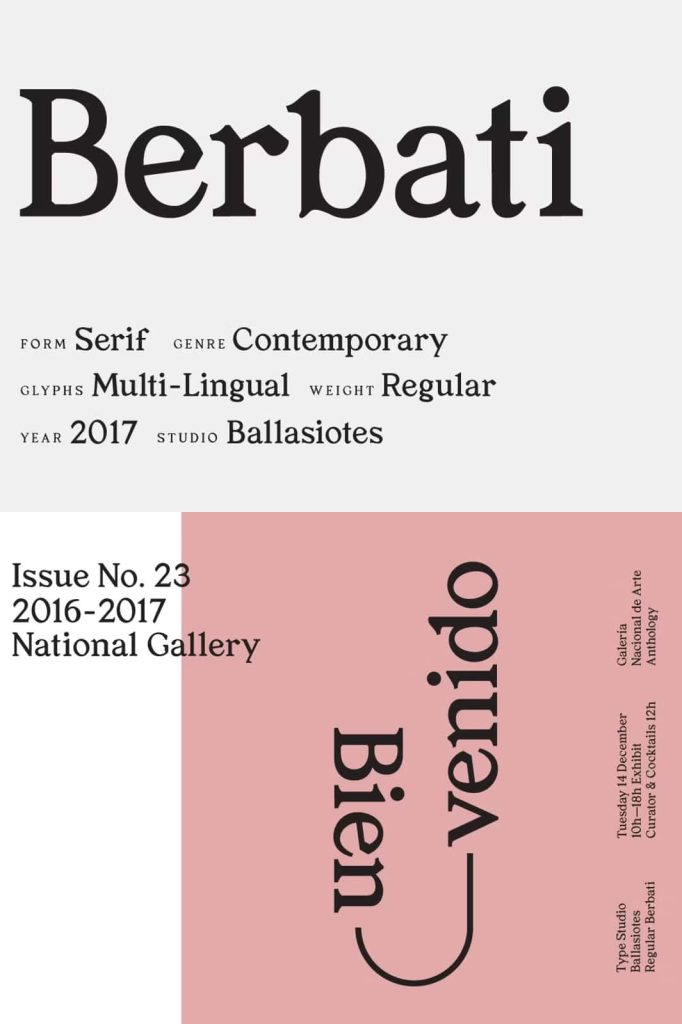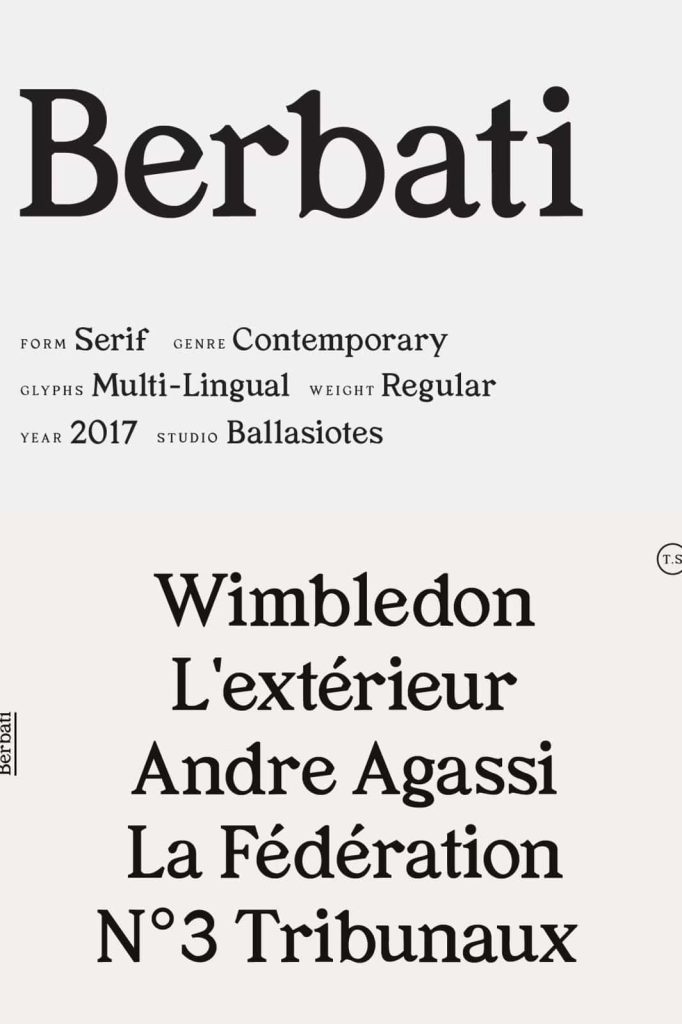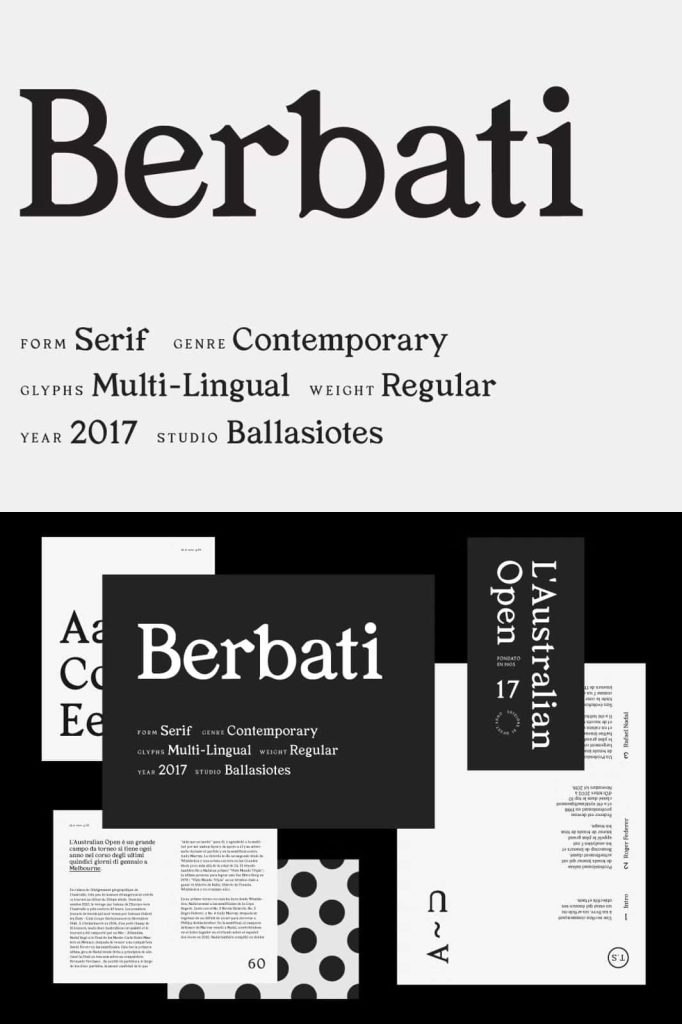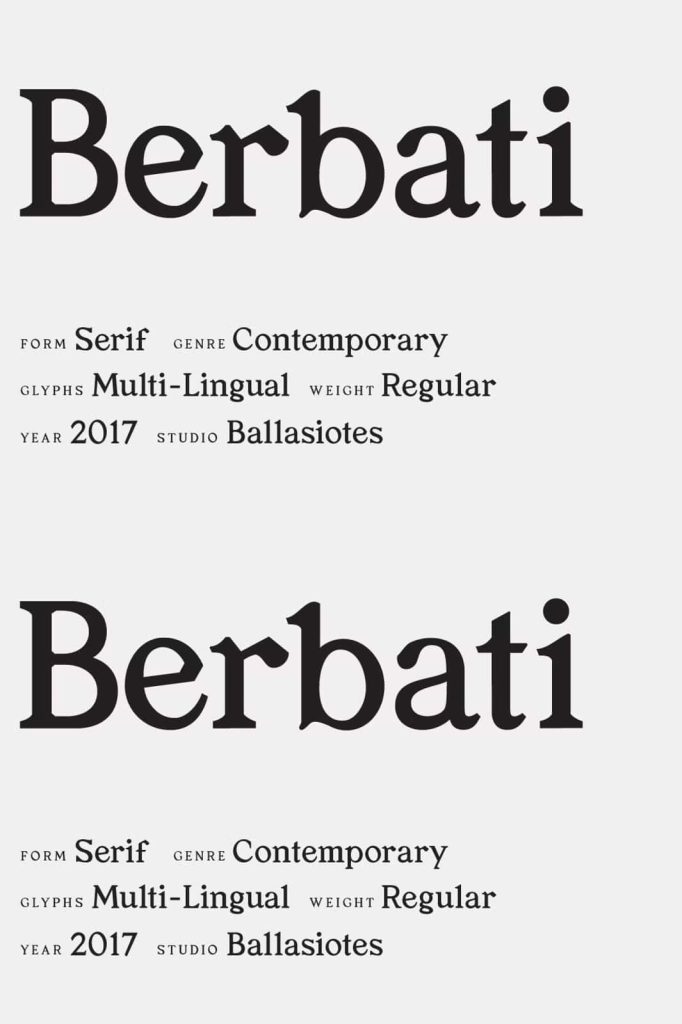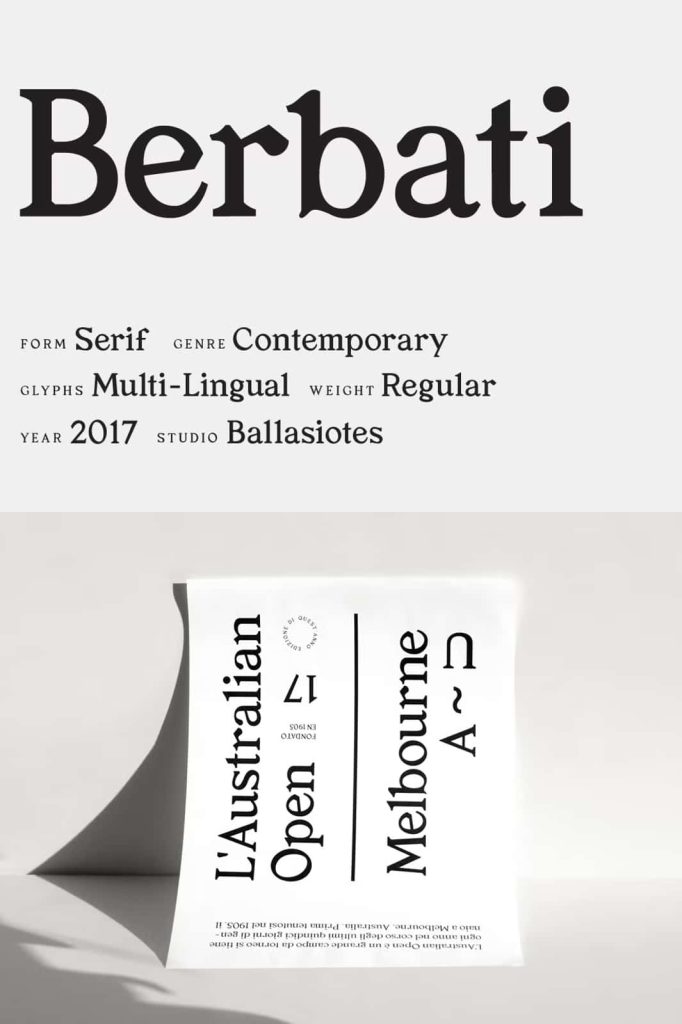
Berbati Serif Typeface – Contemporary Elegance Inspired by Old-World Typography
Berbati Serif Typeface is a refined contemporary serif font that draws inspiration from the beauty and craftsmanship of traditional old-world typography. Originally released in 2017 for Studio Ballasiotes, Berbati combines historical influences with modern design principles, creating a versatile typeface that feels both timeless and innovative. Its elegant proportions, sharp edges, and carefully crafted experimental accents give every character a distinctive personality while maintaining exceptional readability.
Designed to perform across a wide range of creative applications, Berbati offers the perfect balance between classic sophistication and contemporary expression. Whether you are creating luxury branding, editorial layouts, product packaging, logos, websites, or promotional materials, this serif typeface provides a polished appearance that immediately elevates your design.
Unlike traditional serif fonts that often follow predictable structures, Berbati introduces subtle experimental details that make every composition feel fresh and unique. These distinctive characteristics allow designers to create memorable visual identities without sacrificing professionalism or versatility.
A Contemporary Interpretation of Classic Serif Design
Berbati takes inspiration from historical letterforms while embracing the needs of modern designers. The font preserves the elegance and authority associated with classic serif typography while incorporating refined contemporary details that help it stand apart from more conventional typefaces.
Its balanced proportions, clean construction, and carefully designed serifs create typography that feels sophisticated without appearing outdated. Every character has been thoughtfully developed to ensure consistency, allowing designers to build harmonious layouts across both print and digital media.
This combination of historical inspiration and modern execution makes Berbati an excellent addition to any professional type collection.
Sharp Edges with Distinctive Character
One of Berbati’s defining features is its beautifully crafted sharp edges that add confidence and precision to every letterform. These clean details contribute to a bold yet elegant appearance, making headlines, logos, and titles instantly more striking.
Complementing these sharp forms are subtle experimental accents that introduce personality without overwhelming the overall design. These carefully balanced details create typography that captures attention while remaining highly readable across various sizes and layouts.
The result is a serif font that feels artistic, modern, and refined all at once.
Key Features
- Contemporary serif typeface inspired by old-world typography.
- Sharp edges for a clean and sophisticated appearance.
- Unique experimental accents that add visual personality.
- Excellent readability for display and editorial use.
- Balanced letterforms with timeless elegance.
- Suitable for both digital and print projects.
- Professional quality for commercial and creative applications.
Perfect for Premium Branding
Typography plays a significant role in establishing brand identity, and Berbati Serif Typeface provides businesses with a powerful visual foundation. Its elegant appearance communicates quality, confidence, and professionalism while its unique character helps brands differentiate themselves from competitors.
Luxury brands, fashion labels, creative agencies, architecture firms, interior designers, boutique businesses, skincare companies, jewelry brands, and lifestyle products can all benefit from Berbati’s sophisticated aesthetic.
Whether used in logos, business cards, packaging, websites, or advertising campaigns, Berbati delivers consistent visual excellence that reinforces a premium brand image.
Outstanding for Editorial Design
Editorial designers appreciate typefaces that combine readability with distinctive personality, and Berbati excels in both areas. Its elegant letterforms make it ideal for magazine covers, feature articles, book titles, newspapers, catalogs, journals, brochures, and annual reports.
The font creates attractive visual hierarchy while maintaining excellent reading comfort, allowing designers to build sophisticated layouts that remain engaging from beginning to end.
Large headlines showcase Berbati’s artistic details, while supporting typography benefits from its clean structure and refined proportions.
Ideal for Print and Digital Applications
Berbati performs beautifully across multiple design environments. Whether printed on premium paper stocks or displayed on high-resolution digital screens, its carefully engineered letterforms maintain clarity and elegance.
The font is suitable for websites, online publications, digital advertising, presentations, social media graphics, mobile interfaces, and printed marketing materials. This versatility allows designers to maintain consistent branding across every communication channel.
Berbati Serif Typeface is a sophisticated contemporary serif font that combines historical inspiration with modern design excellence. Featuring elegant old-world influences, sharp edges, experimental accents, and exceptional versatility, it performs beautifully across branding, editorial design, packaging, logos, websites, and premium print materials. Whether you are building a luxury visual identity or creating refined editorial layouts, Berbati provides timeless typography with distinctive contemporary character that enhances every creative project.